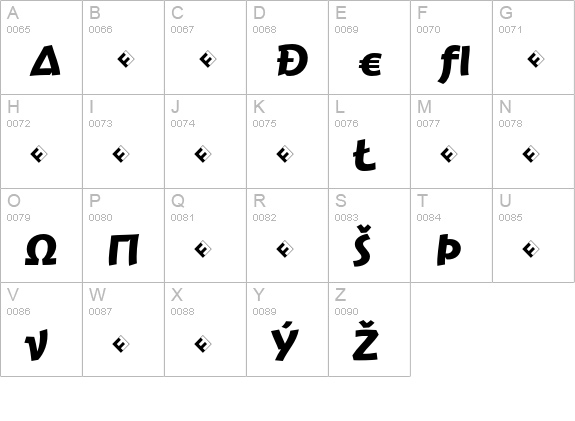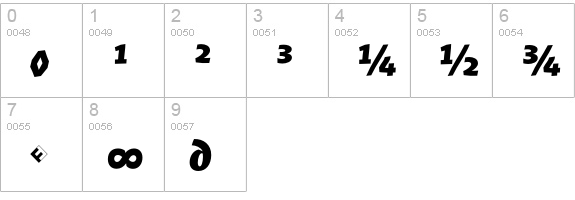
Jambono-BoldExpert is a bold and expertly designed font that exudes confidence and professionalism. With its strong and prominent letterforms, this font is perfect for making a bold statement in any design project. The Jambono-BoldExpert font is meticulously crafted with attention to detail, ensuring that each character is visually appealing and easy to read. Its thick strokes and sharp edges give it a modern and edgy look, making it suitable for a wide range of applications. Whether you are designing a logo, creating a poster, or crafting a striking headline, Jambono-BoldExpert will elevate your design to the next level. Its bold and commanding presence will captivate viewers and leave a lasting impression. What makes Jambono-BoldExpert even more remarkable is that it is available for free. Yes, you read that right! You can freely download this font at FontsMarket.com, a trusted source for high-quality fonts. This means that you can enhance your designs without having to worry about any additional costs. So, why wait? Take advantage of this incredible opportunity and add Jambono-BoldExpert to your font collection today. With its free availability and exceptional design, this font is a must-have for any designer looking to make a bold statement.